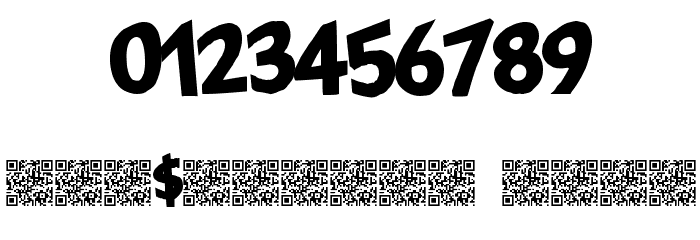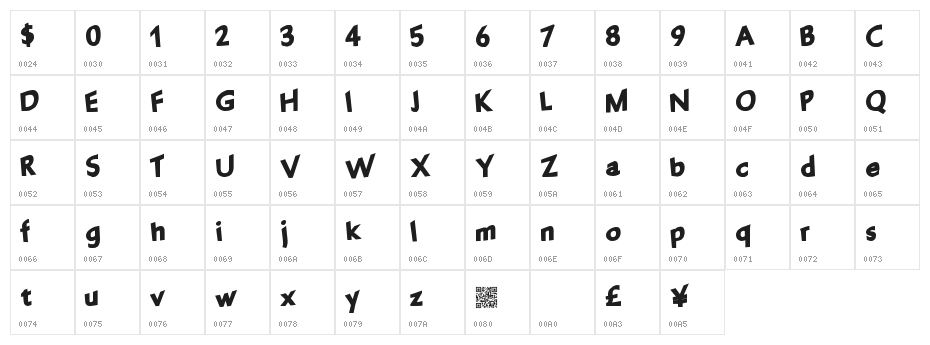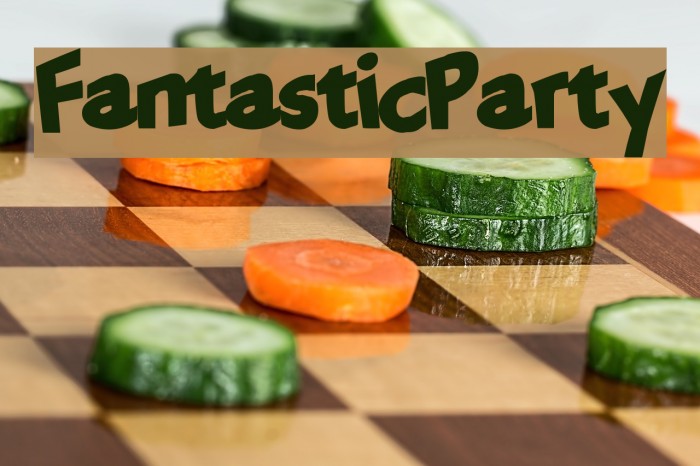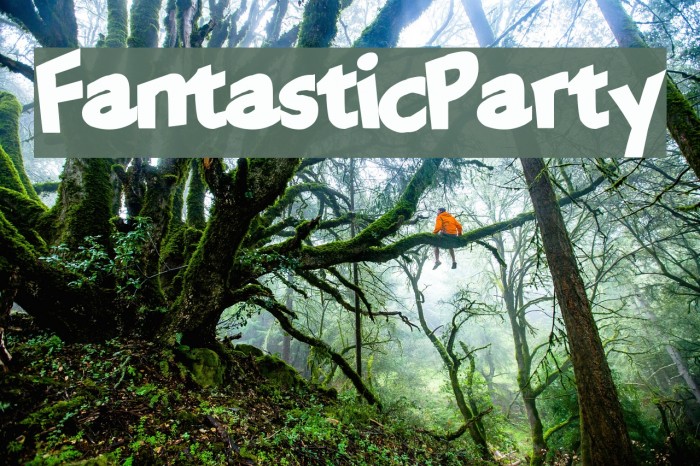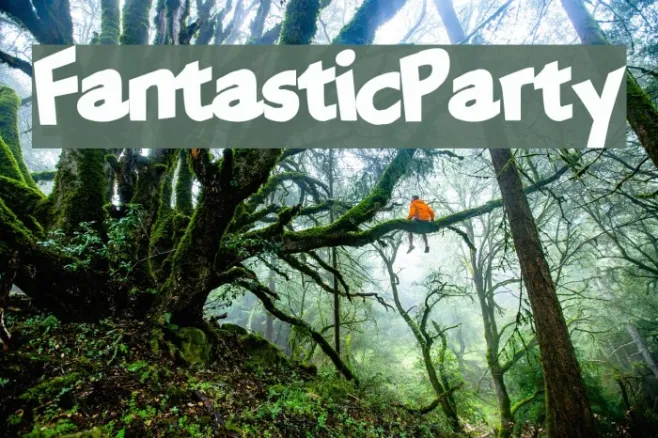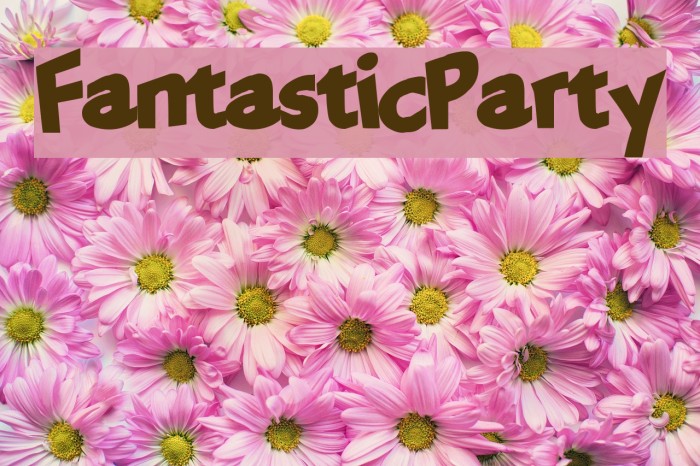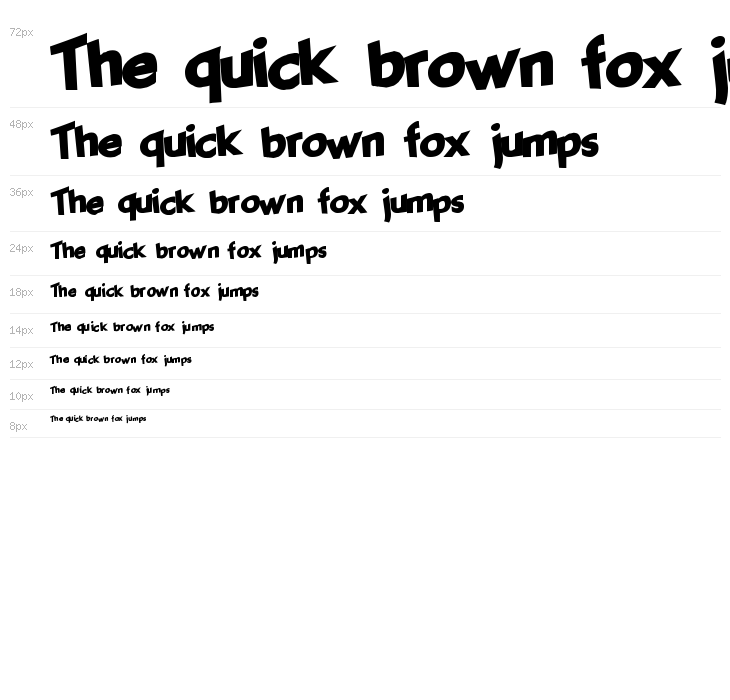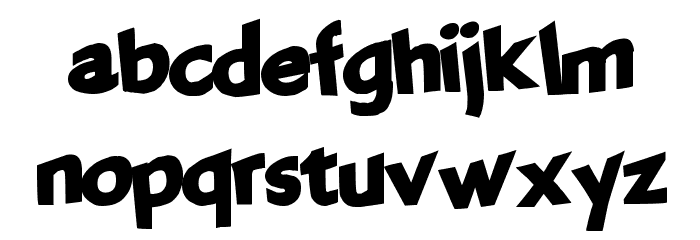
FantasticParty Font
FantasticParty Description
This font exudes a playful and energetic vibe, characterized by its bold and slightly irregular letterforms. The uppercase and lowercase letters have a whimsical, hand-drawn appearance, with each character slightly tilted or skewed, adding to its dynamic feel. The numbers and special characters maintain this lively style, making it suitable for creative and informal designs. The font's thick strokes and lack of uniformity give it a casual, approachable look, perfect for projects that aim to convey fun and excitement.
| Overall Style | Playful, Energetic, Casual |
| Use Case | Headlines, Posters, Invitations |
| Proposed Projects | Ideal for party invitations, children's book covers, playful branding, and event posters. |